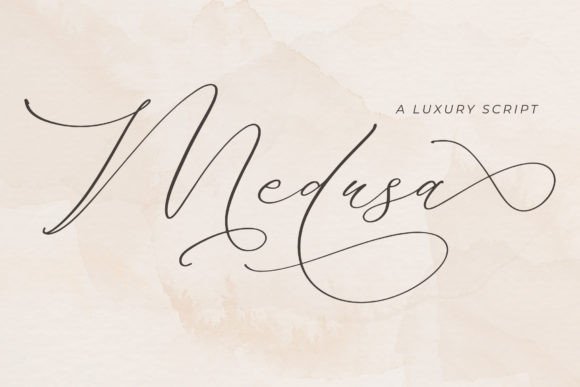
Indulge in the allure of Medusa Font, a captivating script that will cast a spell on your designs. With its intricate details and graceful flow, this font will transform your words into a captivating tale.
Picture your wedding invitations adorned with Medusa's enchanting strokes, leaving your guests spellbound. Its elegant curves and swashes will weave a magical ambiance, making your special day truly unforgettable.
This enchanting font is not just confined to weddings. Its versatility knows no bounds. Whether you're crafting logos, social media graphics, or any other creative endeavor, Medusa Font will infuse your creations with a touch of timeless elegance.
As you delve into the depths of this script, you'll discover a treasure trove of glyphs and swashes, easily accessible through PUA encoding. Embrace the power of Medusa Font and weave enchanting stories through your designs. It's not just a font; it's an invitation to let your creativity flourish.